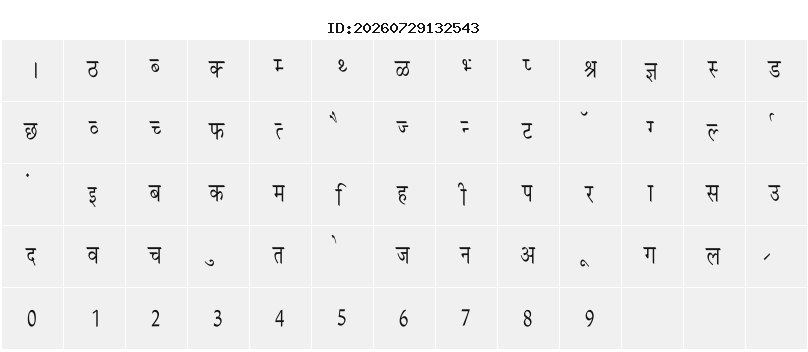
Krishna Condensed Preview
• Font Name: Krishna Condensed
• Full Font Name: Krishna Condensed
• PostScript Name: KrishnaCondensed
About Krishna Condensed.ttf
Krishna Condensed.ttf is a modern, elegant sans-serif font designed for ultimate readability and visual harmony. Perfect for branding, headlines, web design, and print materials.